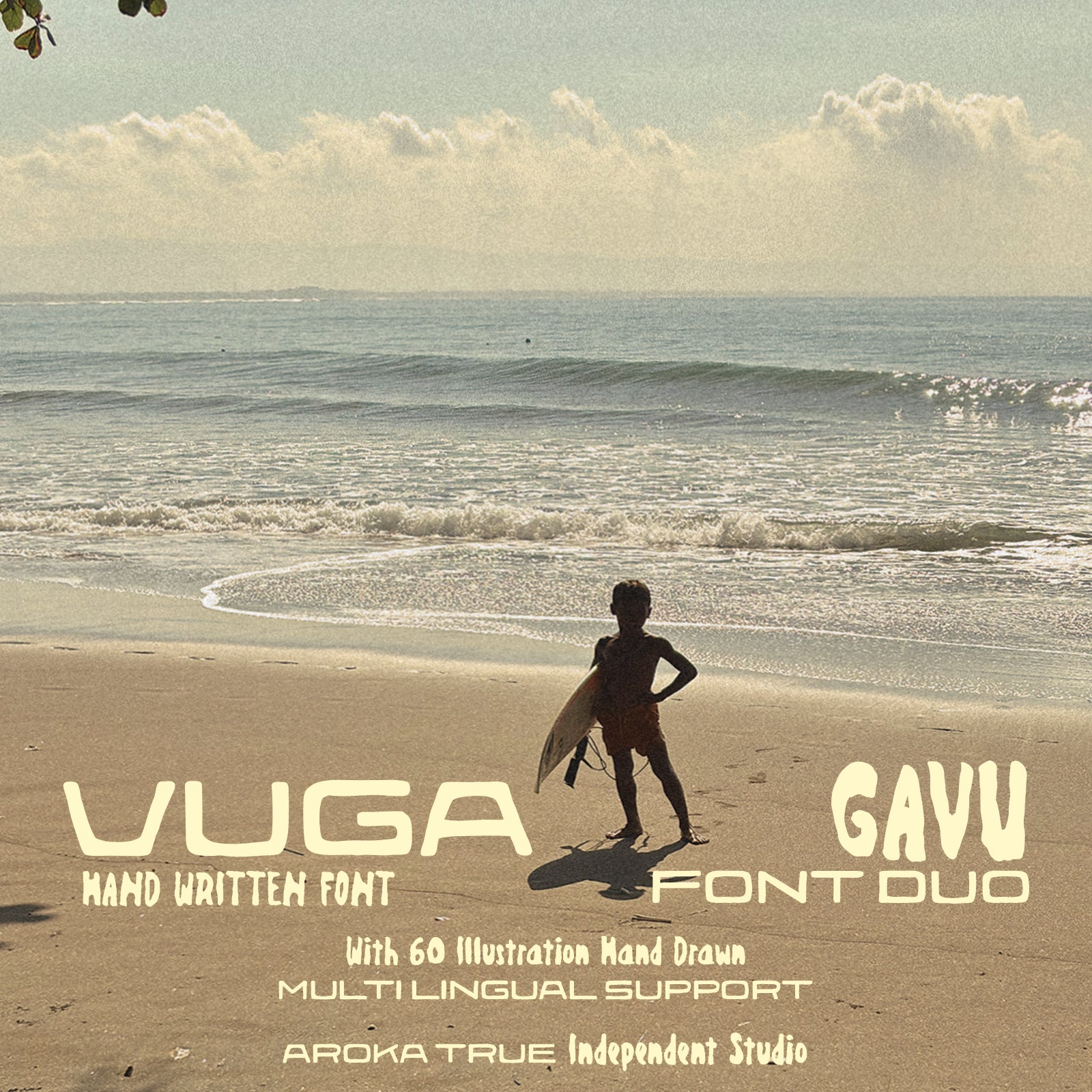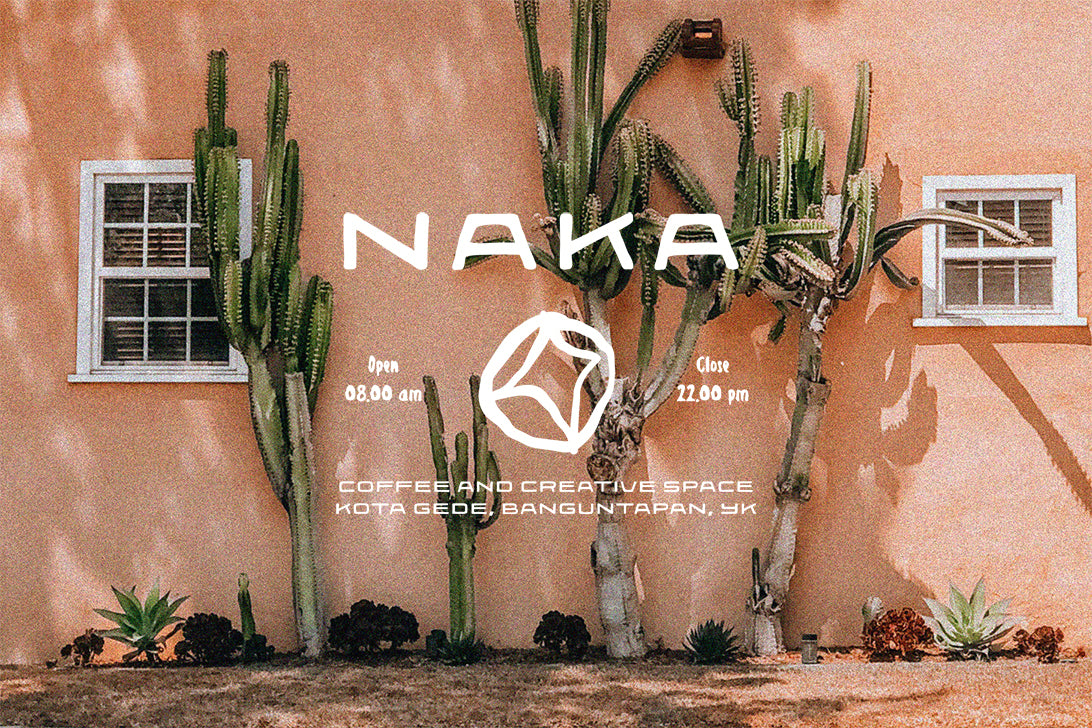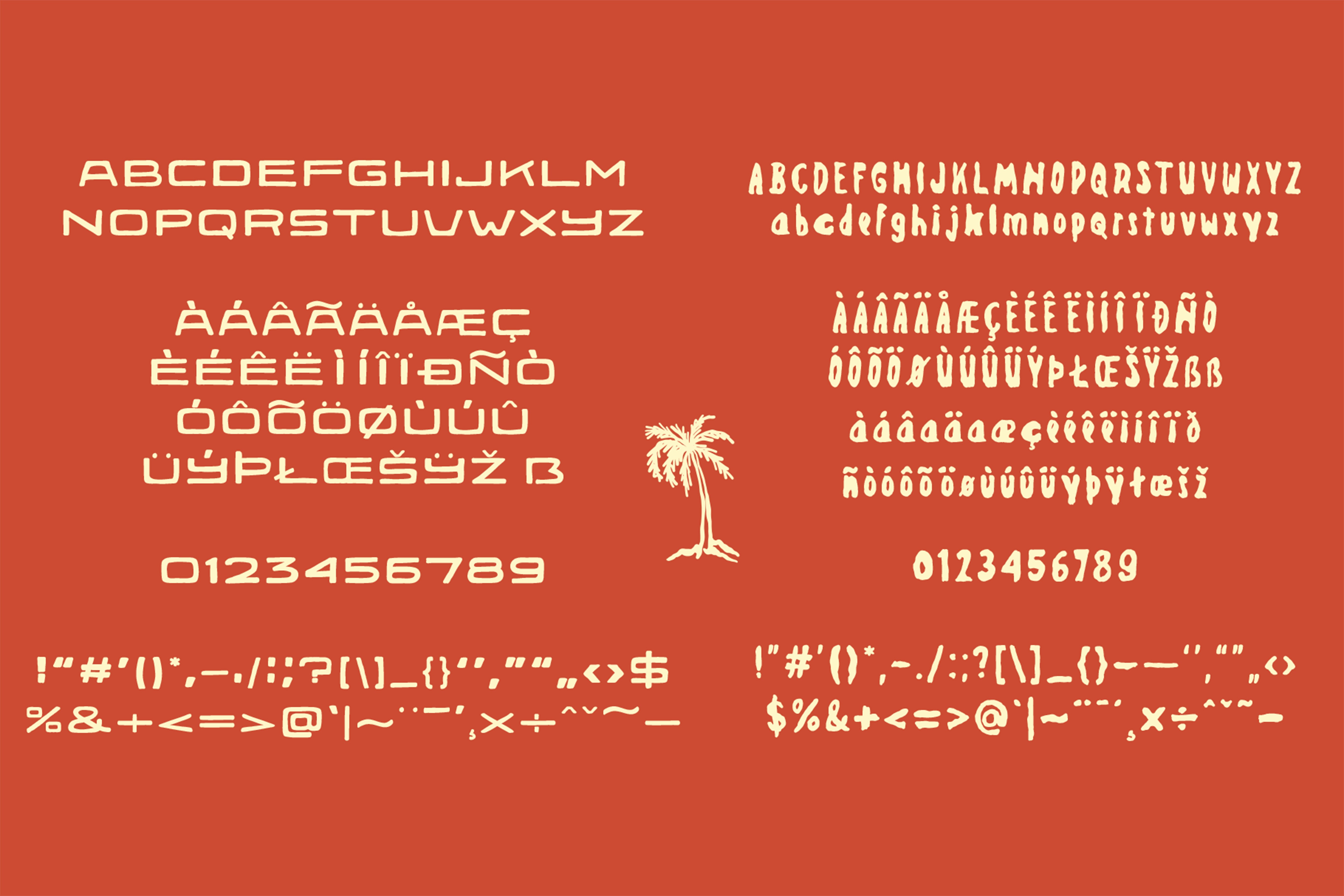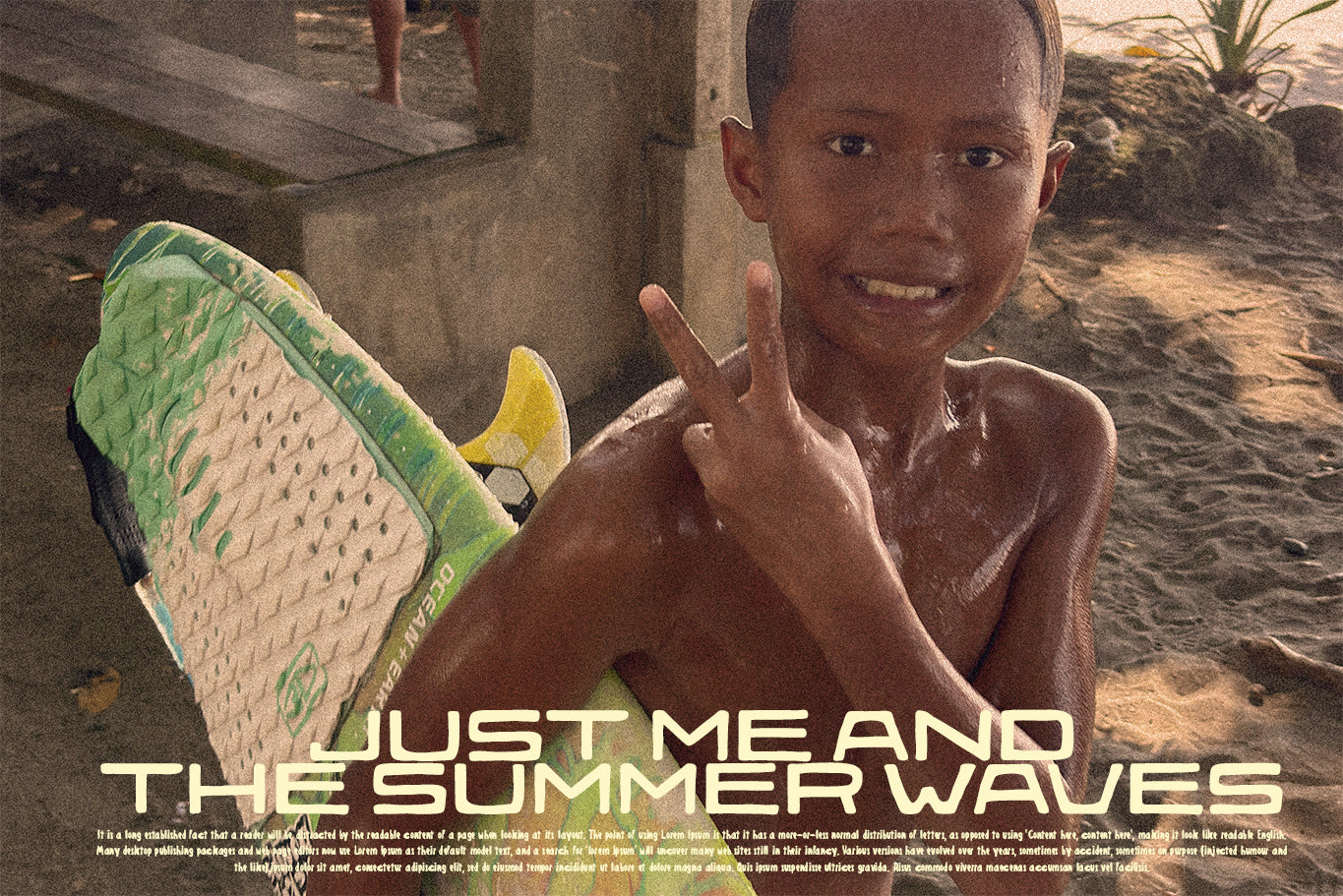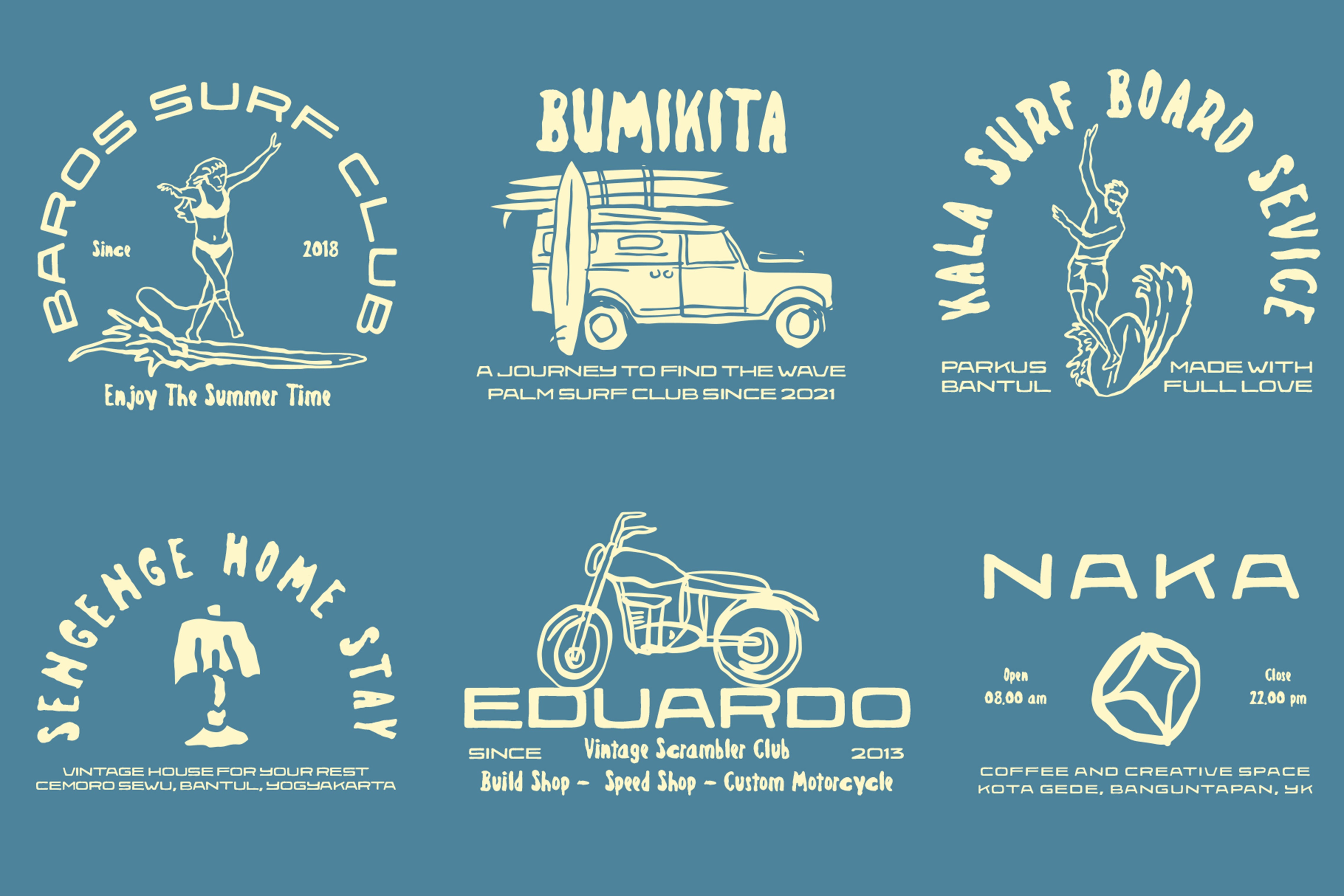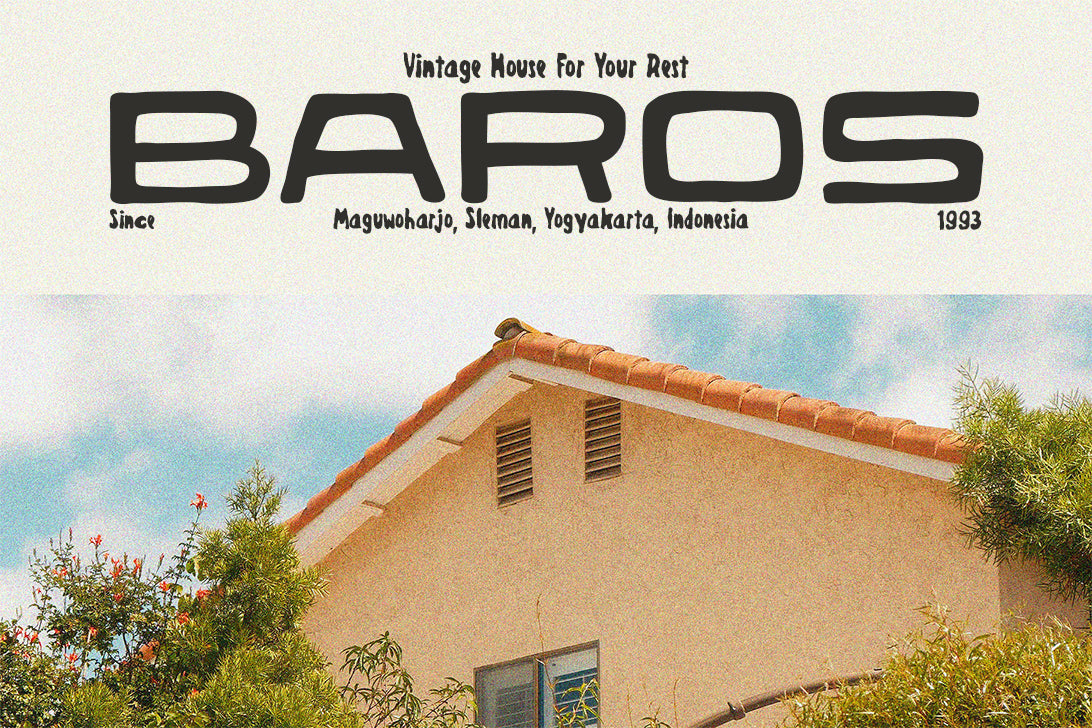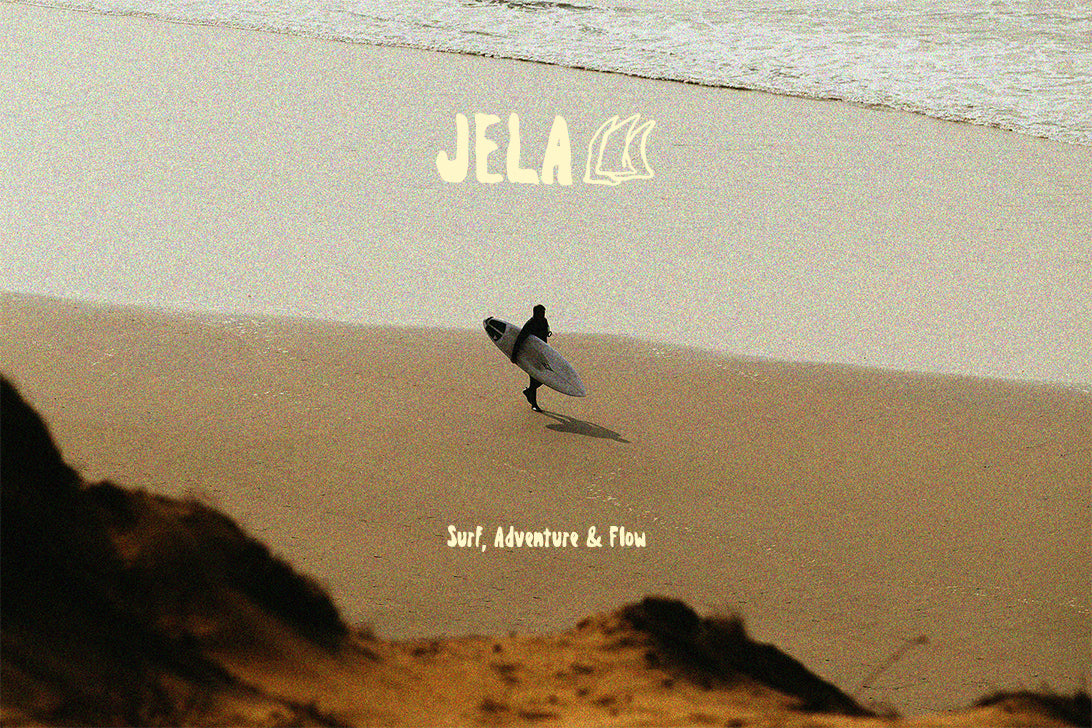
VUGA & GAVU Hand Drawn Font
With 2 different fonts this combination will be very unique, then the completeness of 60 illustrations will also facilitate you too, available in Adobe Illustration, Pdf and PNG formats, enjoy your summer with this asset, thank you very much!
The VUGA & GAVU Hand Drawn Font includes two unique fonts and a collection of 60 illustrations, available in Adobe Illustrator, PDF, and PNG formats. This product is designed to complement various branding and layout projects, particularly those related to surf culture and summer themes.